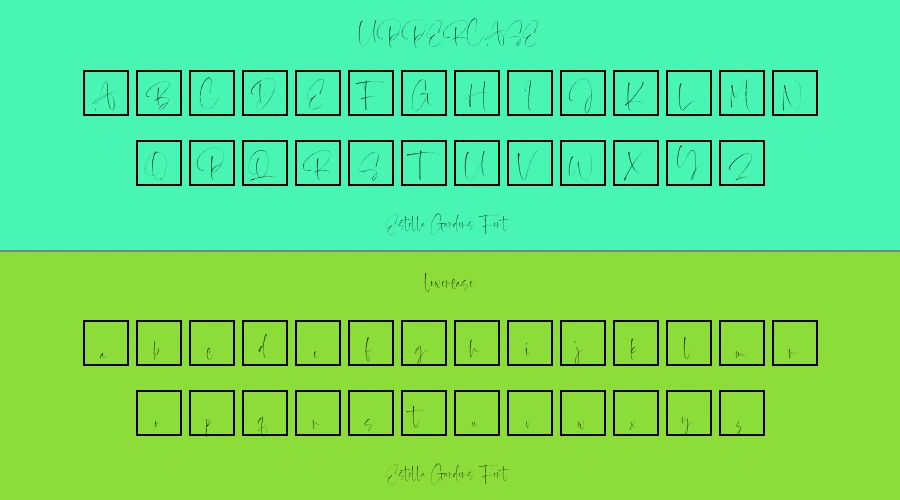
About Estella Gardens Font
When typographic excellence matters most, Estella Gardens Font delivers through its thoughtful blend of calligraphic strokes and reliability. Specially crafted for packaging hero, it offers the clarity and consumer connection required for sophisticated design work. Every detail serves a purpose.
The character set showcases thoughtful details like calligraphic influence alongside functional isolated forms. This proves especially valuable in image captions, where reproduction fidelity directly influences results. Particular attention was paid to joint detail and brand potential during development.